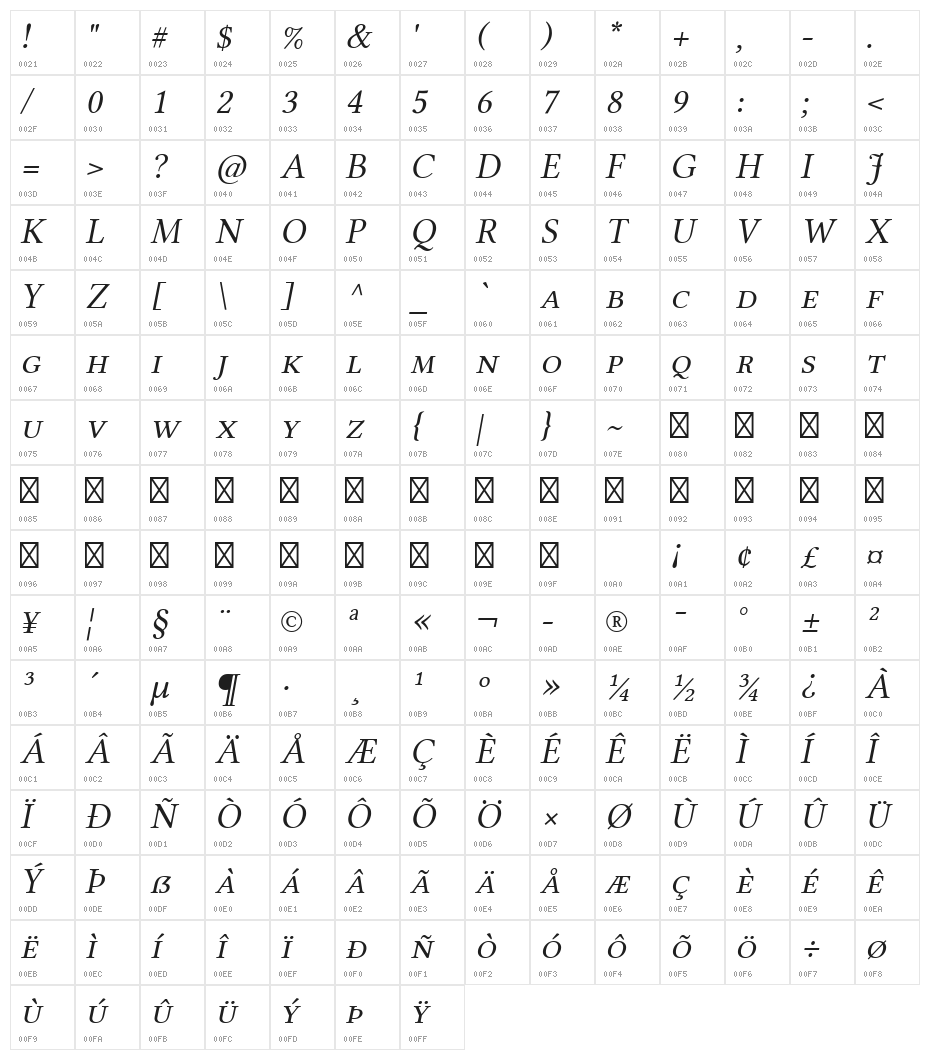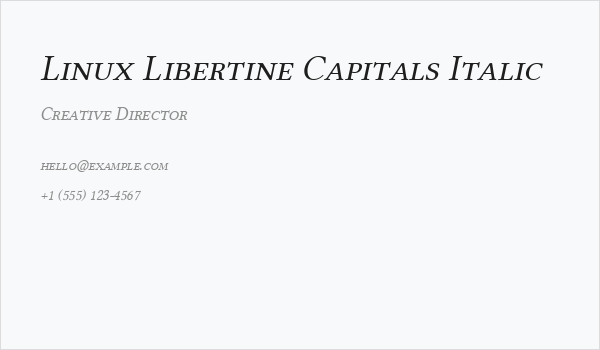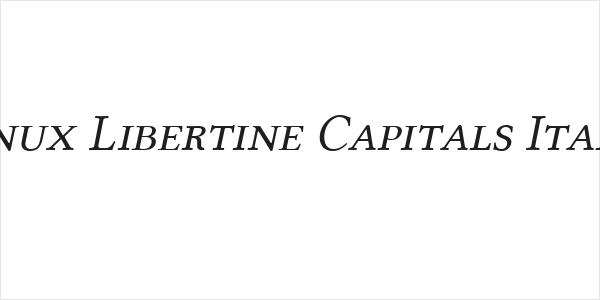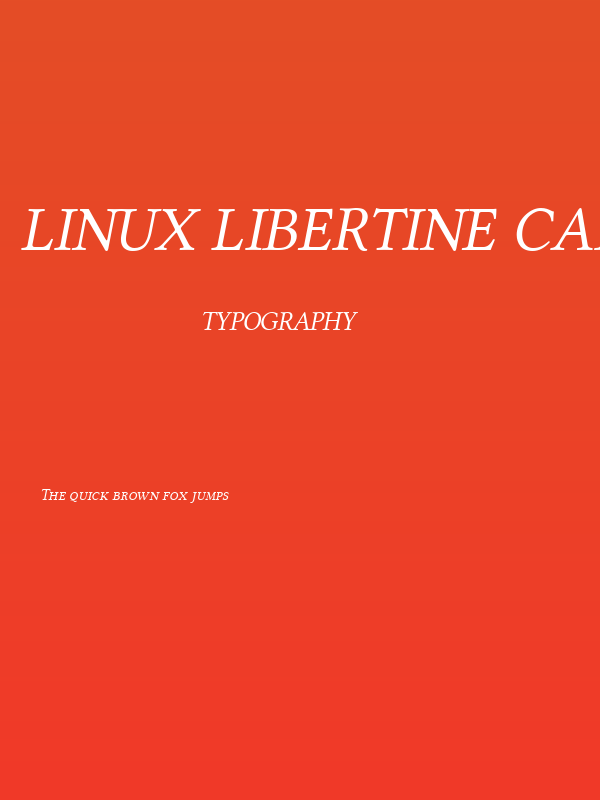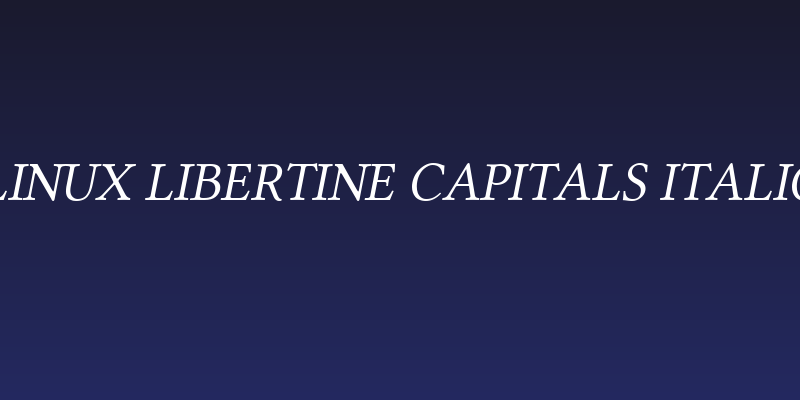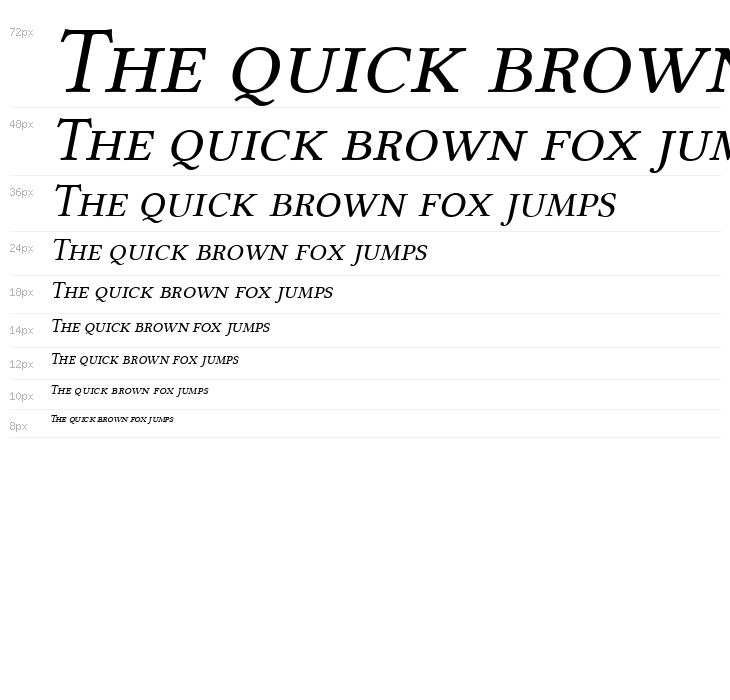
Linux Libertine Capitals Italic Font
Linux Libertine Capitals Italic Description
This font features a classic serif style with elegant italicization, providing a sophisticated and timeless appearance. The characters are well-defined with moderate contrast between thick and thin strokes, enhancing readability while maintaining an artistic flair. The serifs are pronounced yet refined, contributing to the font's traditional aesthetic. Its italic nature adds a sense of motion and fluidity, making it suitable for formal and creative applications. The numerals and special characters are consistent with the overall design, ensuring a cohesive look across different text elements.
| Proposed Projects | Ideal for formal invitations, editorial design, book covers, and branding materials that require a classic touch. |